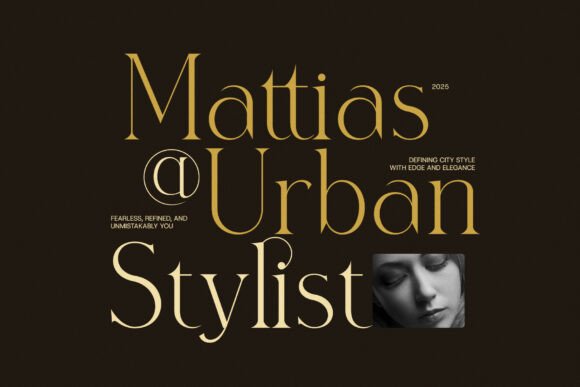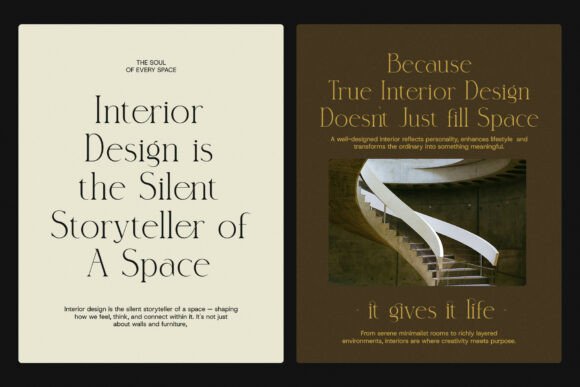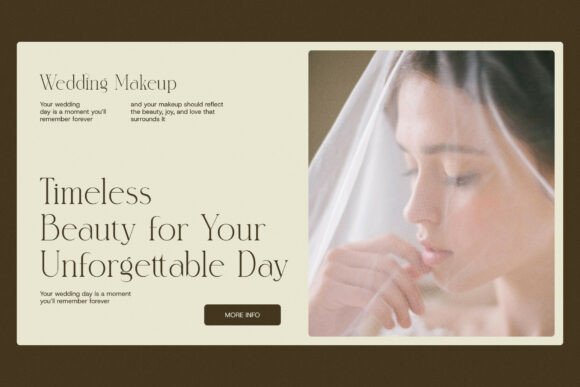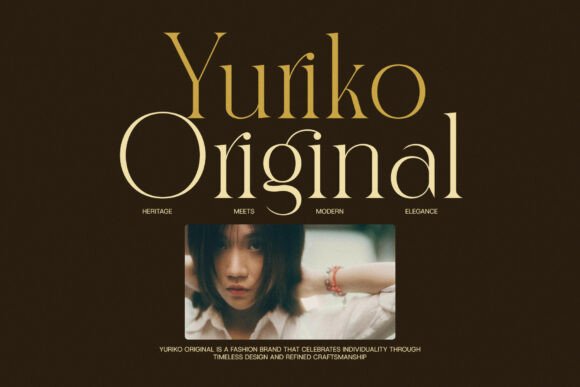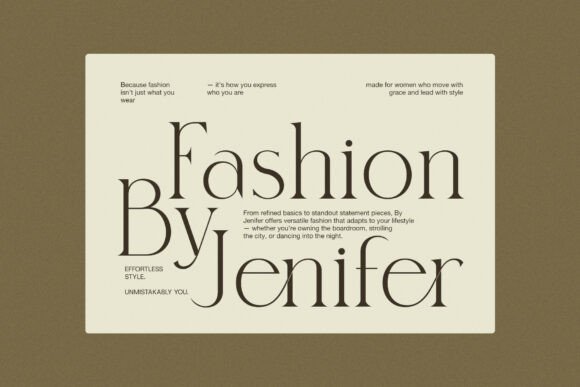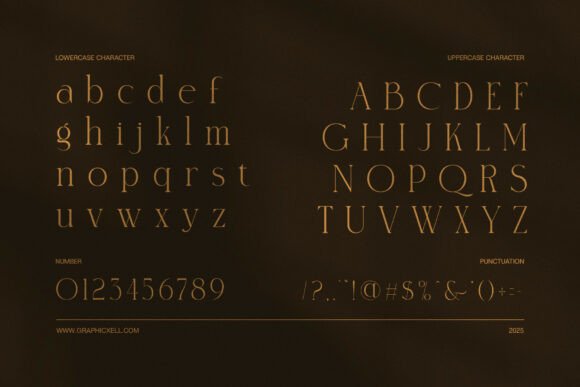
Introduction to Rendis Font
Have you ever stared at a blank page, feeling the pressure to create something that captures the essence of your brand? The cursor blinks, and your mind goes blank. You know exactly what you want – a font that exudes high-quality design, yet is versatile enough to work seamlessly across different formats. Enter Rendis Font, a modern serif typeface that effortlessly blends clean structure with elegant curves, offering a refined look that’s both timeless and contemporary.
This design resource is a game-changer for designers seeking a balance between classic style and modern flair. With Rendis Font, you can create a stunning visual identity that’s perfect for a wide range of branding needs. Whether you’re working on a creative project with a transparent background or designing a website, this font delivers both clarity and charm, making it a must-have in your design arsenal.
Key Features of Rendis Font
- High-quality design resource ideal for creative projects, including logos, graphics, and digital art.
- Unique, modern design with a bold and eye-catching aesthetic, perfect for making a statement in creative projects.
Honest Review: Rendis Font
I recently stumbled upon the Rendis Font while searching for a high-quality design resource for my latest creative project. I was blown away by its unique design and versatility. Here’s my honest review:
What works well: ✨ The Rendis Font is incredibly easy to use, even for non-designers. Its clean and minimalist design makes it perfect for any creative project that requires a touch of sophistication. The font also features a transparent background, making it easy to customize and integrate with any design.
However, there are a few limitations: ⚠️ The Rendis Font may not be suitable for projects that require a bold or dramatic font. Additionally, the font may not be as comprehensive as some other design resources, with a limited range of font sizes and styles.
Overall, I’m thoroughly impressed with the Rendis Font. Its unique design, ease of use, and free download make it a valuable addition to any designer’s toolkit. While it may have some limitations, I believe it’s a solid choice for designers looking for a high-quality design resource.
- Unique and versatile design
- Easy to use, even for non-designers
- May not be suitable for bold or dramatic projects
- Limited range of font sizes and styles
Rendis Font
The Rendis Font is a high-quality design resource perfect for creative projects that require a unique and elegant touch. With its transparent background, this font is ideal for overlaying on images or using as a standalone element in your design.
The Rendis Font is perfect for a variety of design projects, including:
- Business cards and branding materials
- Photography overlays and captions
Getting the Most Out of Rendis Font
To get the most out of the Rendis Font, be sure to:
- Combine the font with other design elements for a unique look
- Use the font on a transparent background to create a sense of depth